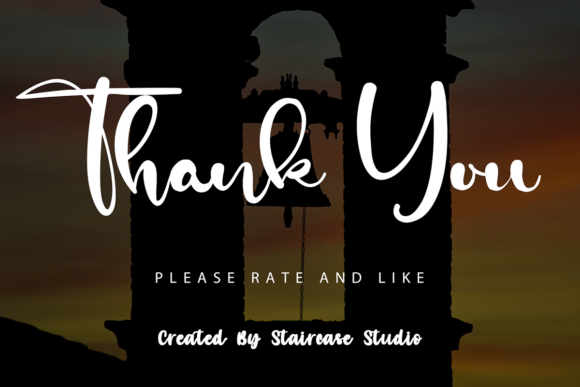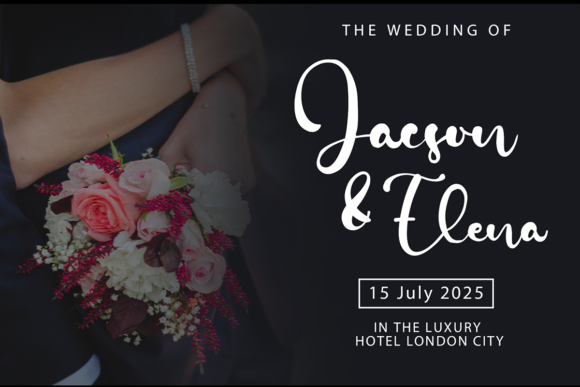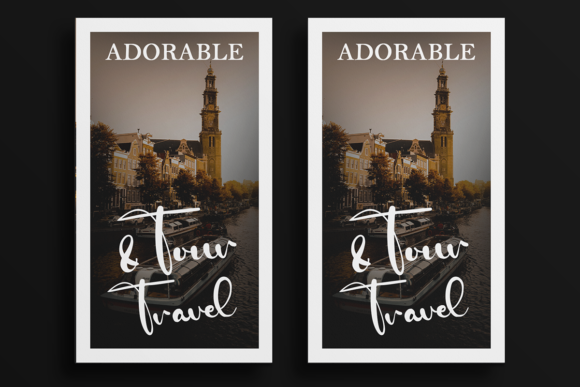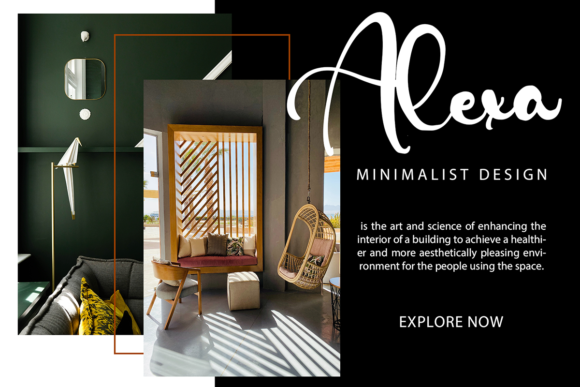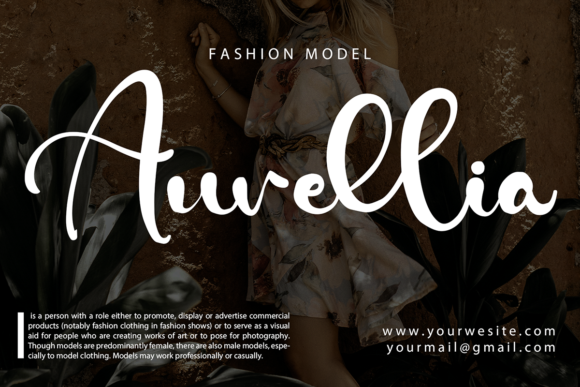
Campbell Font
About Campbell Font
Campbell is a modern and beautiful script font. A collection of letters and numbers suitable for your creative projects. It is also great for Logotype, Branding Design, Logo Design, Digital Lettering Arts, T-Shirt/Apparel, Poster, Magazine, Signs, Advertising Design, and any other design needs.